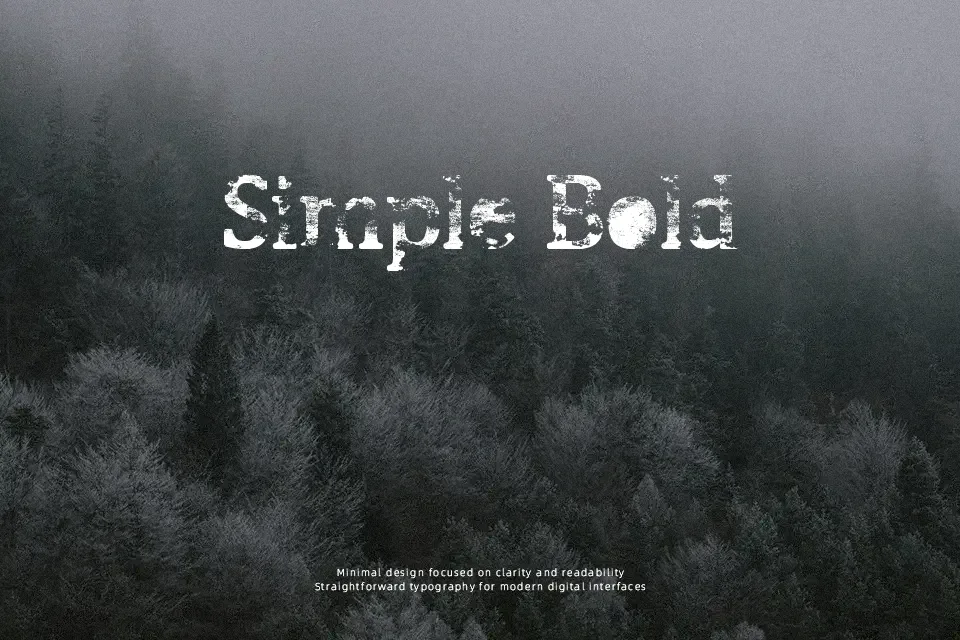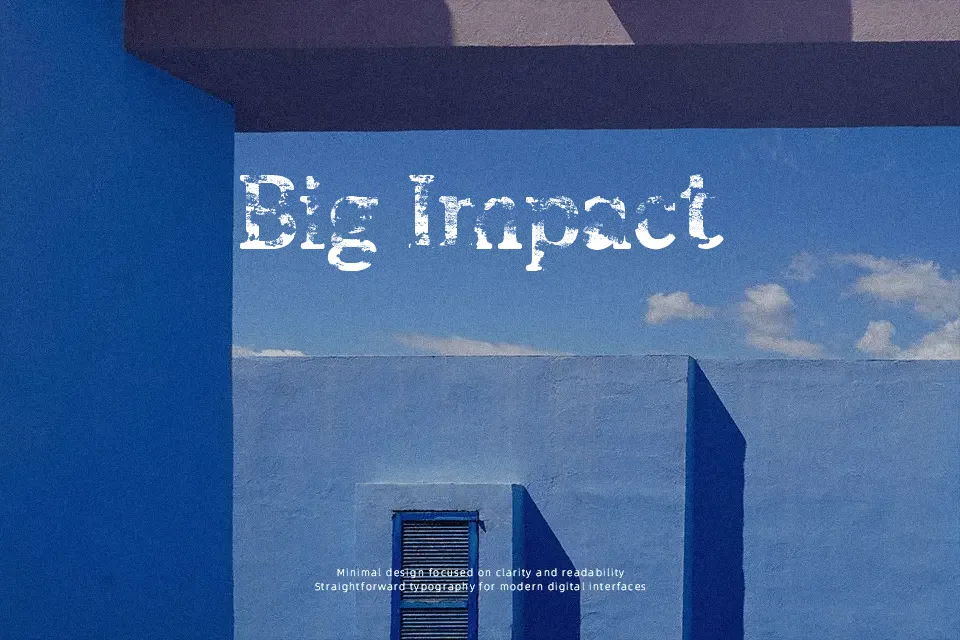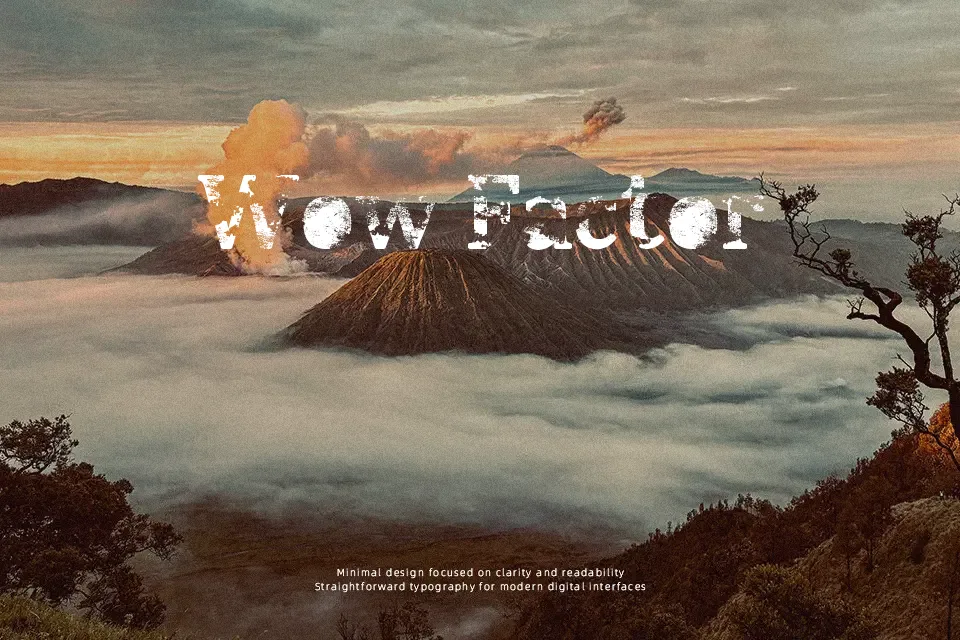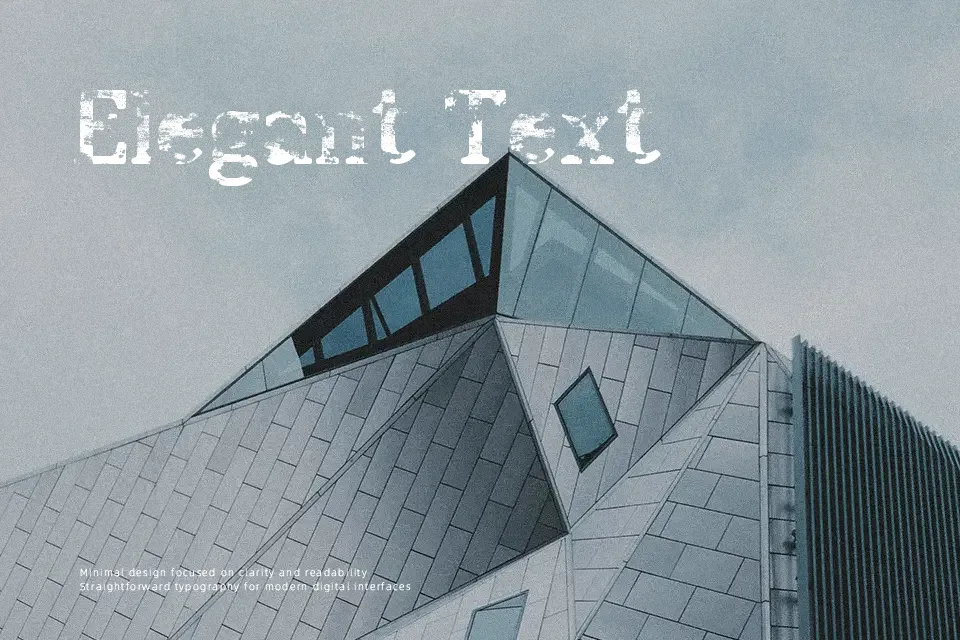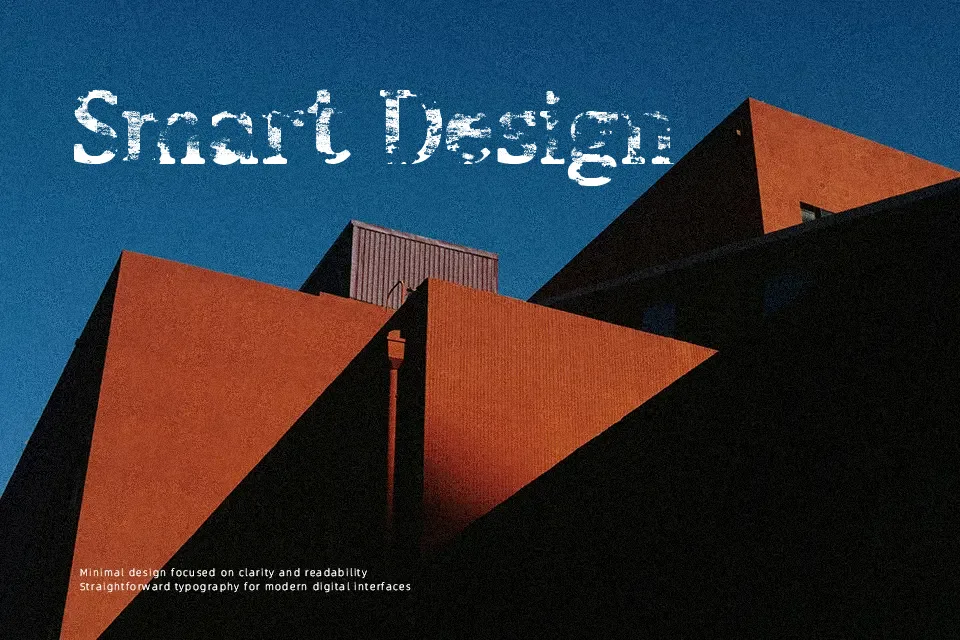
Street Blues Trial Font
Street Blues Trial Font combines heavy structural forms with heavily eroded surfaces to deliver an aggressive, industrial presence. The letterforms showcase uniform stroke weights disrupted by rough, irregular cutouts and speckled wear patterns across every character. Moderate spacing ensures individual glyphs remain identifiable when rendered in large title settings, while the blocky proportions establish a grounded visual rhythm. This typeface functions reliably across music cover art, skate culture graphics, and event promotional banners where dramatic texture is required. However, the intricate distressing causes smaller captions to lose structural clarity, making the design unsuitable for extended reading or compact editorial columns.
Best For: streetwear apparel graphics, music festival posters, skateboard deck artwork, urban event banners
Not Ideal For: continuous body text, mobile interface labels, legal documents, dense editorial layouts
Perfect for fashion, headline, and music, with a bold and decorative style.